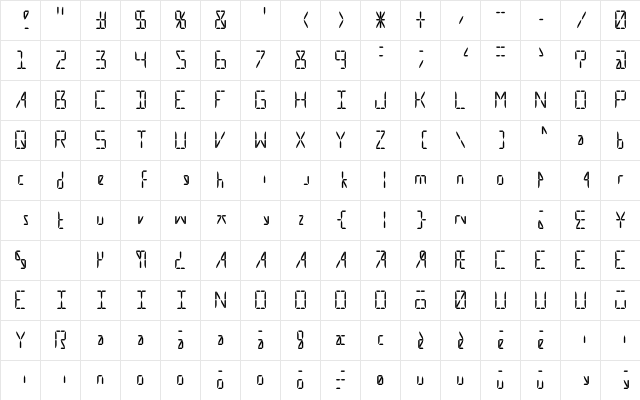
Calculate 16 Grid Regular
| Designer | Benjamin Bl̨oltz |
Design Context for Calculate 16 Grid Typeface
Calculate 16 Grid takes a measured approach to typography — its balanced proportions and neutral character make it a reliable workhorse for both digital and print work.